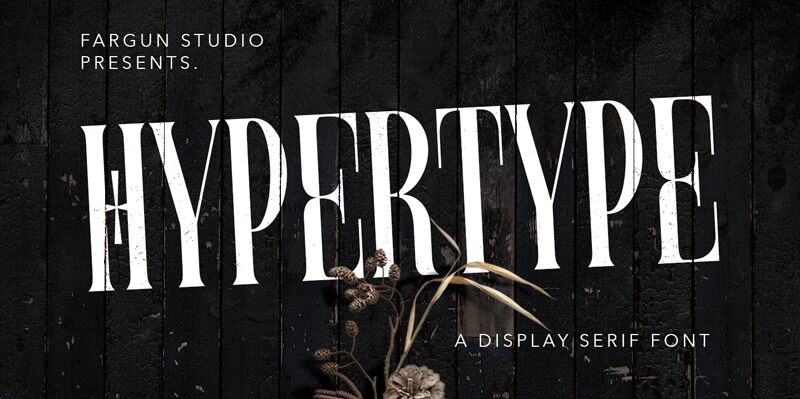
Hypertype font is a sophisticated free serif font designed by Fargun Studio that exudes youthfulness, energy, and impact. Its elegant and modern appearance makes it perfect for delivering a sleek and dramatic visual message. With dynamic elements, this font combines both classic and contemporary styles, resulting in an exceptionally vivid and original typeface.
Use Hypertype in your mockups related to medical, tourism, or advertisements for movies, art galleries, and fashion photographers. It also works well with social media content, website headers, and even on restaurant menus and other food-related projects.